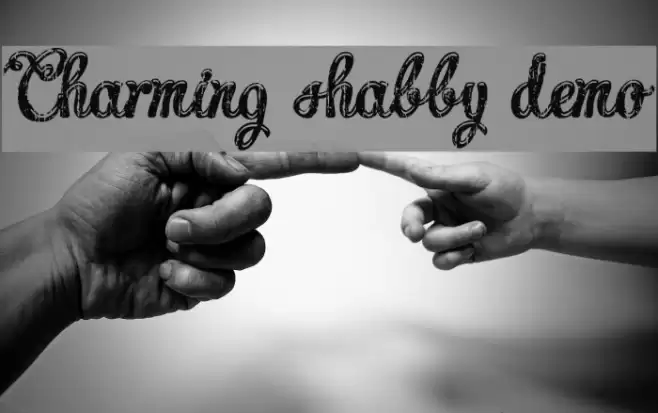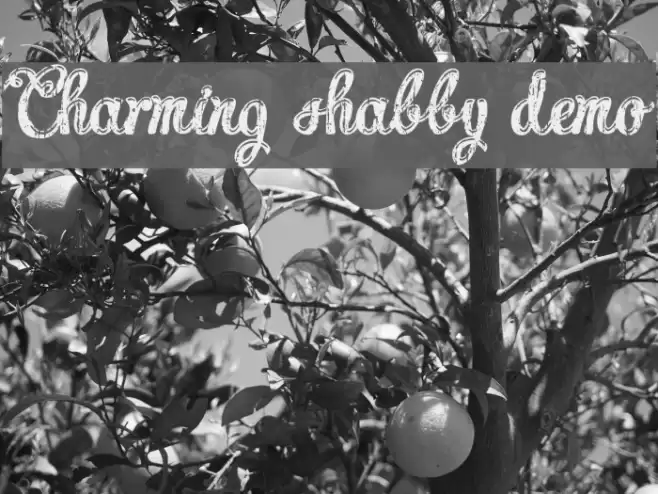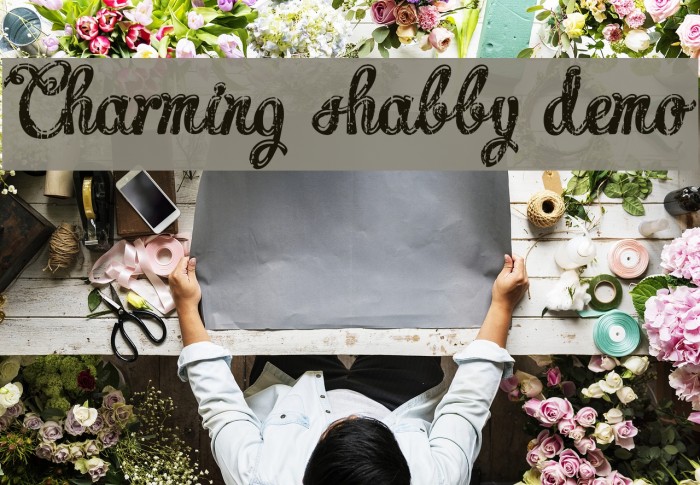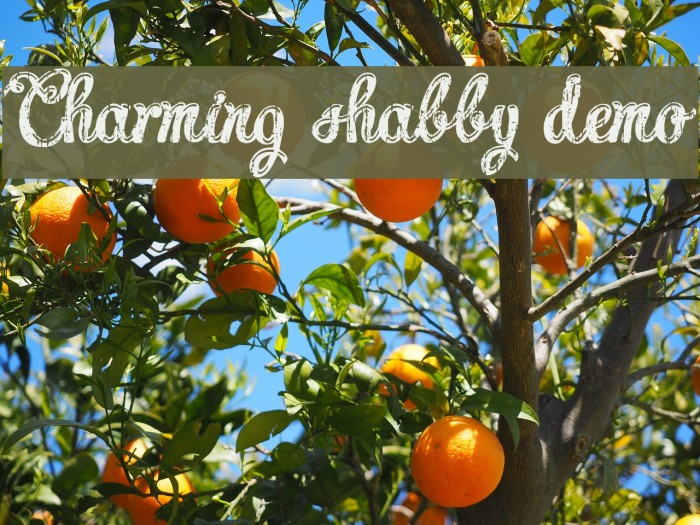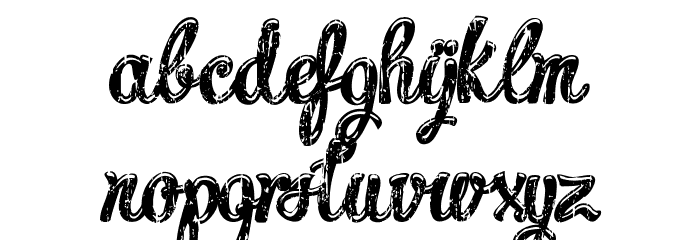
Charming shabby demo Font
Charming shabby demo Description
This font exudes a charming and rustic appeal with its intricate, distressed design. Each letter is adorned with decorative flourishes and a textured, worn look that gives it a vintage feel. The uppercase letters are bold and elaborate, while the lowercase letters maintain a consistent style with slightly less ornamentation. The numbers and special characters follow the same aesthetic, ensuring a cohesive look across all characters. This font's unique style makes it perfect for projects that require a touch of elegance and nostalgia.
A decorative, vintage-style font with distressed, ornate characters from Uncategorized fonts.
- Proposed Projects: Ideal for wedding invitations, vintage-themed posters, branding for artisanal products, and decorative signage.
- Overall Style: Vintage
- Use Case: Logos, Headlines, Decorative text